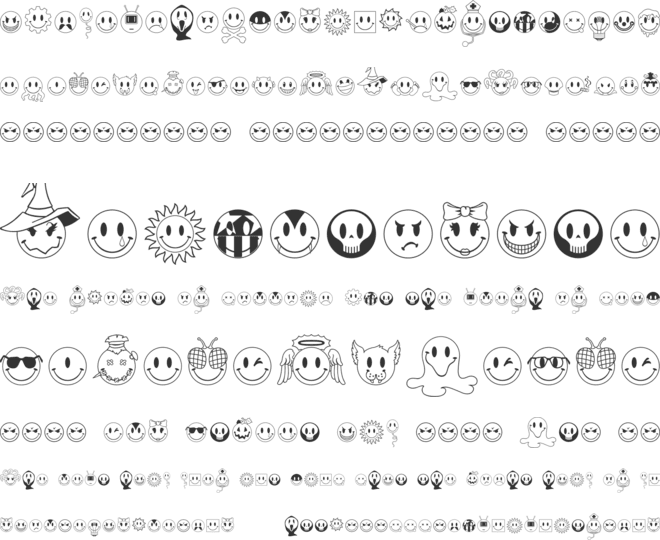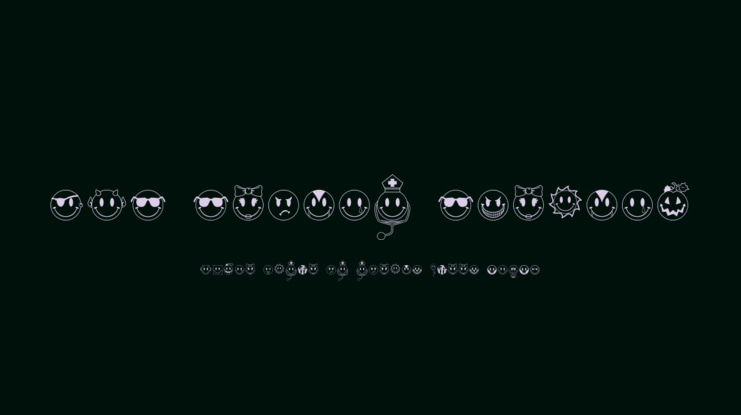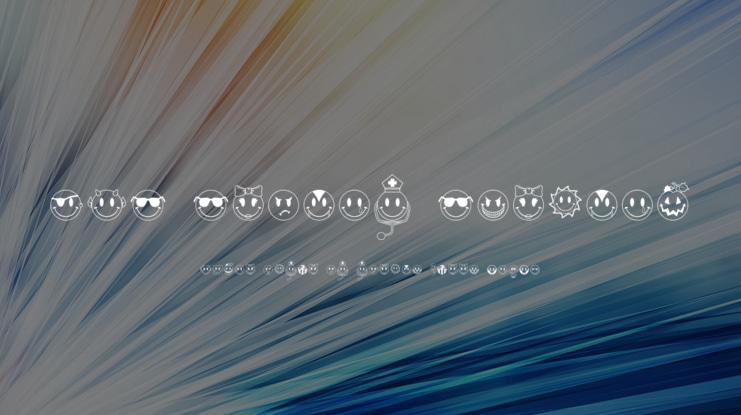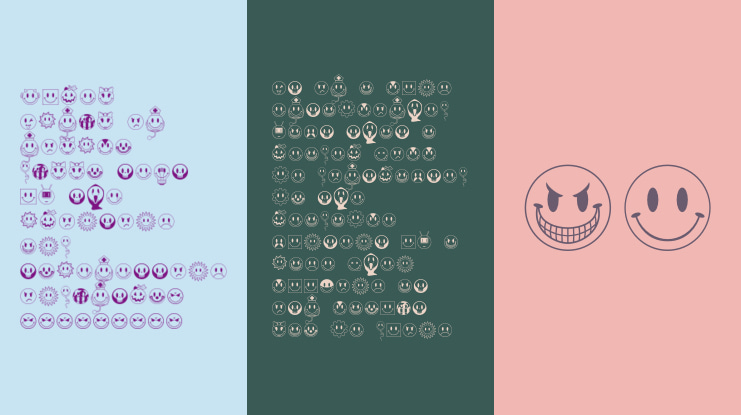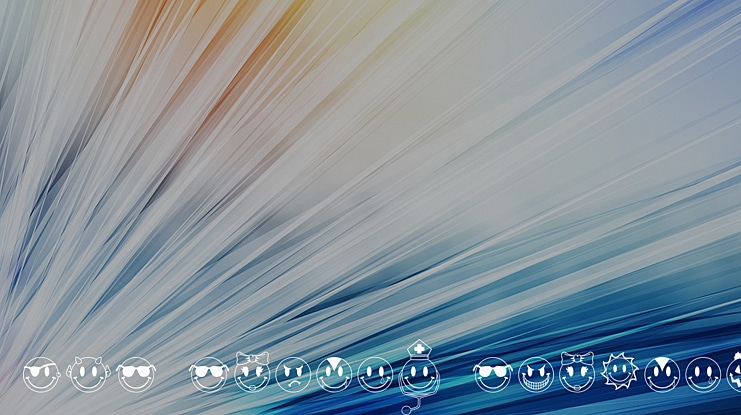
JLS Smiles Sampler Font
JLS Smiles Sampler Font by Michael Adkins & James Stirling
Have a nice day! I can remember that motto and the smiley face from childhood. It was friendly, optimistic little image that became an icon. These days it has been updated and is a collection of emoticons used by cultures world wide. The smiley face can now be friendly, sad, happy, angry, etc. This collection is our fun expression of the smiley face. We've got smileys for emotions, seasons, some holidays, and just about all of the emotions. There are smileys for just about every occasion. We also created a smiley tribute to classic movie monsters.
So, have a (insert your preference here) day!